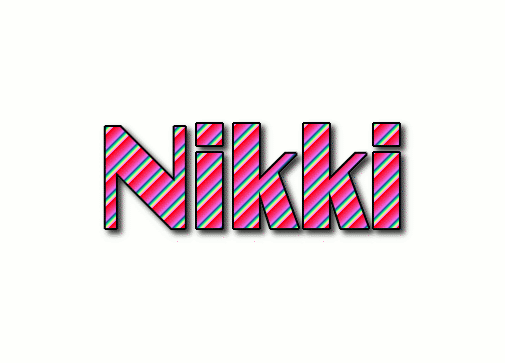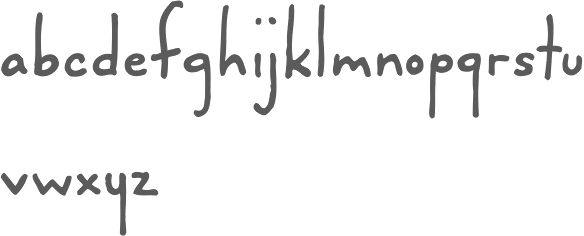
Nikki In Different Fonts
Showcase Tulip by nikki Graffiti lettering fonts
Final Fontification And Adjustments Were Done By Chank Diesel.
Habede Extra Doodles By 7Ntypes.
You can test out your font by using the text box at the top of the page. A word doodle logo style that lets you have fun and embrace your inner child. This font was posted on 06 may 2015 and is called darling nikki font.